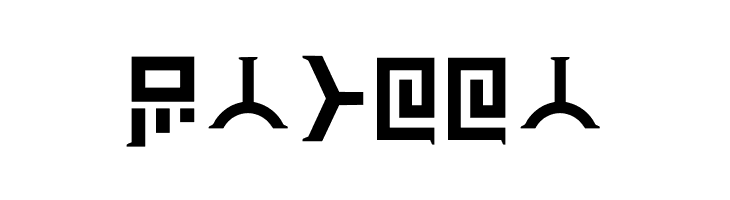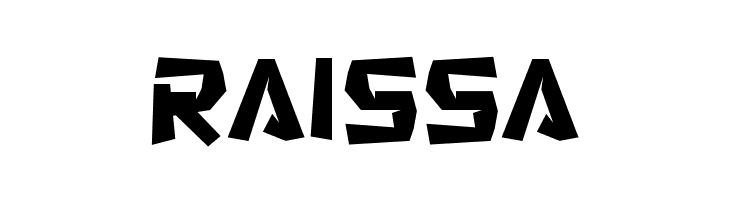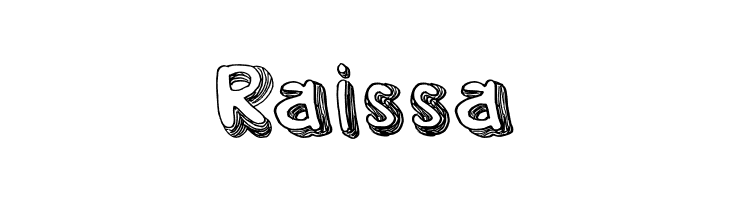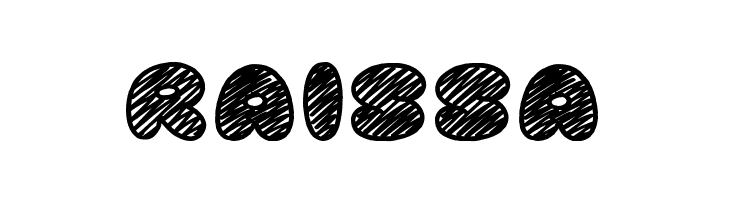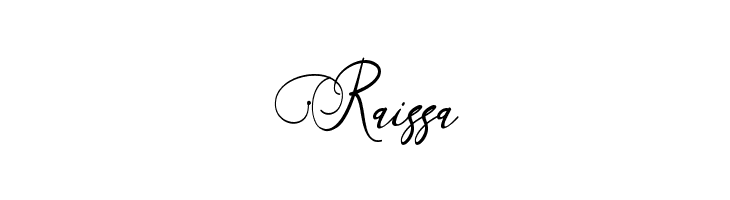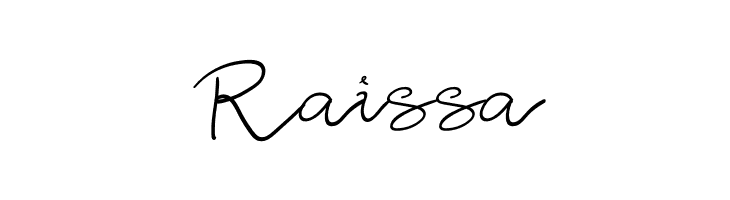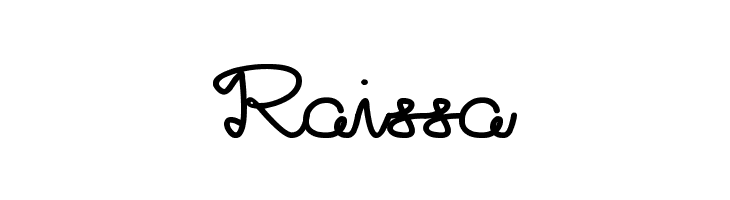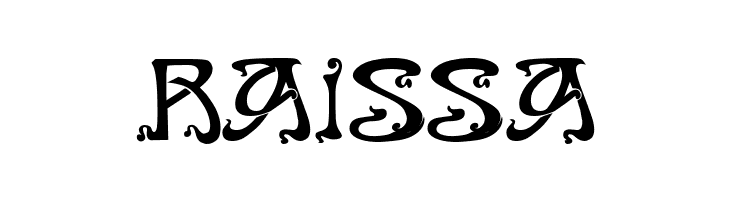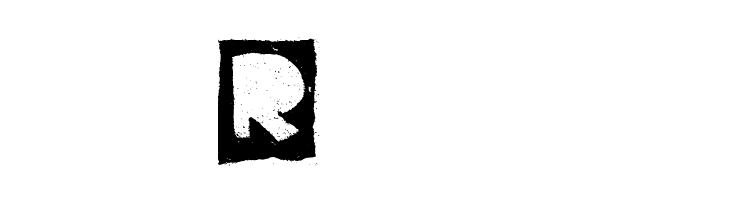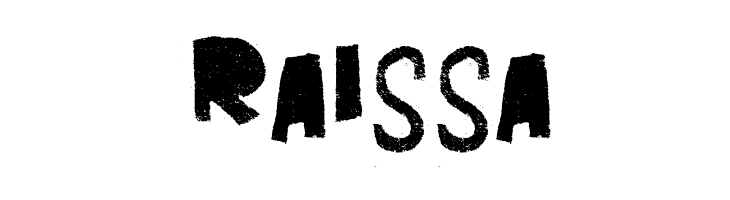
• Arjuno
( Roch Art )
A dynamic, expressive handwritten font with rough, textured strokes.
• Art
( ATRAX - antraxja-fonts.iweb.pl/en/ )
A modern, geometric sans-serif font with clean, rounded edges and uniform stroke width.
• Art Book
( Fonts by Jonathan S. Harris )
A bold, hand-drawn font with a playful, scribbled texture.
• Art Brewery
A bold, brush-style font with expressive, dynamic strokes.
• Art Class
A decorative, grunge-style font with textured, artistic characters.
• Art decor
• Art Dystopia
• Art Exibition
A fluid and elegant script font with a cursive, handwritten style.
• Art Greco
( Fonts by Cumberland Fontworks - http://www222.pair.com/sjohn/fonts.htm - S. John Ross )
A bold, hand-drawn font with a rough, textured, and angular style.
• Art HEART
A whimsical, artistic font with flowing, interconnected strokes and playful loops.
• Art HEART
A whimsical, hand-drawn font with looping, interconnected strokes and a playful aesthetic.
• Art HEART Bold
A playful, heart-embellished decorative font with bold, flowing strokes.
• ART HISTORY BOOK
( Fonts by Regulerstudio )
A playful, hand-drawn font with bold, rounded characters and a textured, artistic style.
• Art Icons and Tools
Not a valid font sample; contains placeholder glyphs.
• art iii
( Fonts bomb )
A playful, hand-drawn font with a whimsical and artistic style.
• Art Maria
An elegant, decorative script font with intricate uppercase and graceful lowercase letters.
• Art Nouveau Bild
An ornate Art Nouveau font with flowing lines and intricate details.
• Art Nouveau Blume
A decorative Art Nouveau-inspired font with intricate floral motifs.